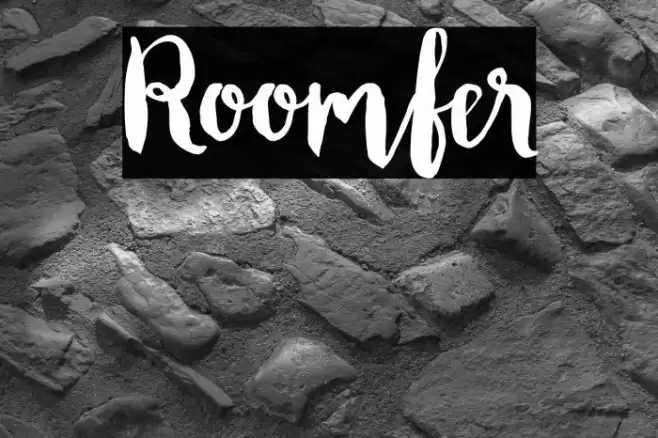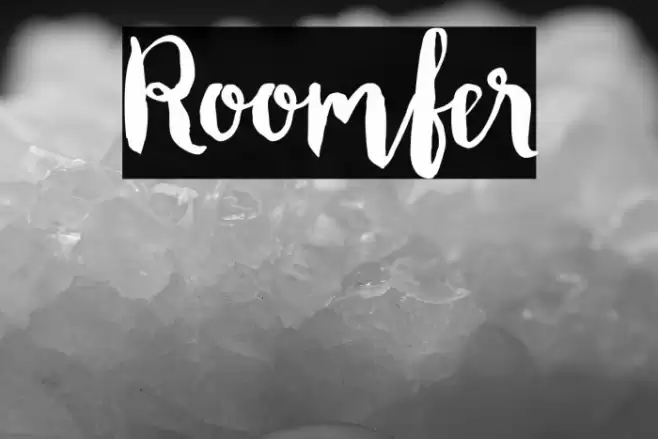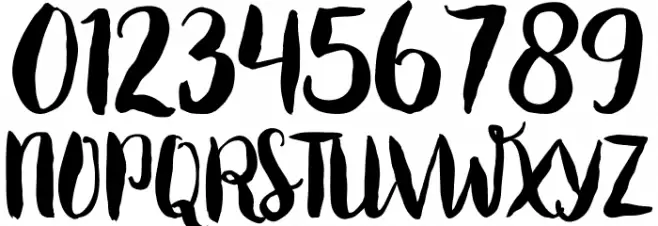
Roomfer Font
Roomfer Description
This font features a bold and expressive handwritten style, characterized by its thick strokes and fluid, cursive forms. The letters are connected in a way that mimics natural handwriting, with a playful and artistic flair. The uppercase letters are tall and prominent, while the lowercase letters maintain a consistent flow, creating a harmonious balance. The numbers and special characters follow the same bold and dynamic style, making them stand out. This font exudes a sense of creativity and spontaneity, perfect for projects that require a personal touch.
A bold, expressive handwritten font with fluid cursive forms from Uncategorized fonts.
- Proposed Projects: Ideal for greeting cards, invitations, posters, and branding projects that seek a personal and artistic touch.